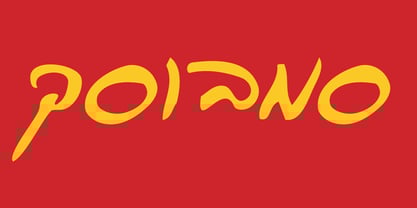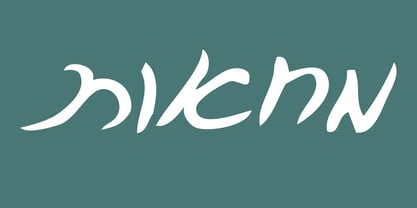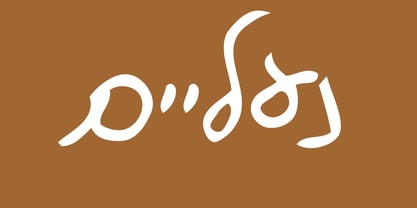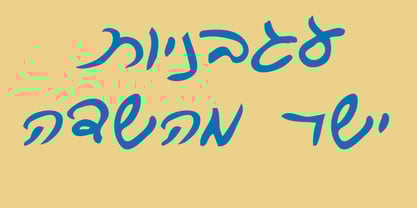
Alifim MF
by Masterfont
The Alifim MF Font Family was designed by Devorah Gaia and published by Masterfont. Alifim MF contains 1 styles. More about this family
Happy? Childish? Naughty? Funny?
is has it all in a sensitive line stroke.
Designers: Devorah Gaia
Foundry: Masterfont